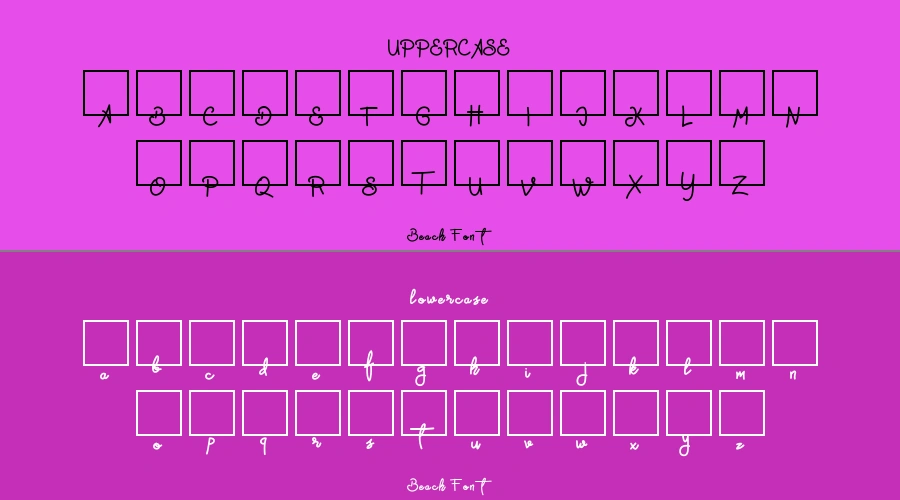
About Beach Font
Designed with precision, Beach Font merges graceful transitions with textual warmth in every character. This versatility makes it particularly effective for technical manuals, where legibility and industrial strength directly impact communication quality. Each letterform demonstrates meticulous craftsmanship.
Technical excellence shines through elements like hand-drawn quality and monogram components, enhancing typographic versatility. In sidebars settings, Beach Font proves its worth through superior digital conversion. The thoughtful execution of proportion and artistic value ensures professional results.